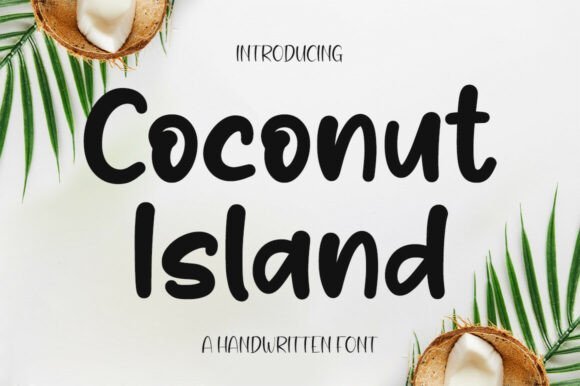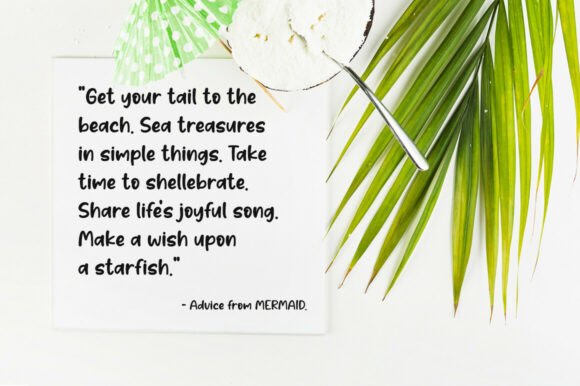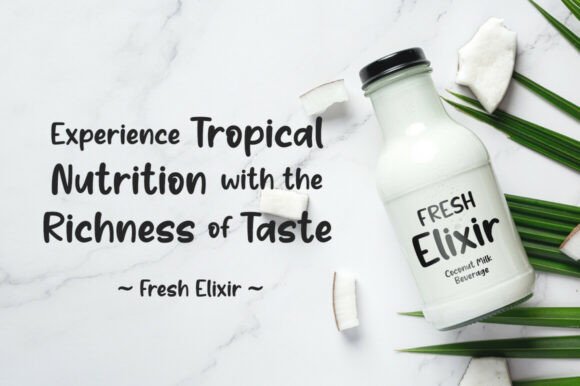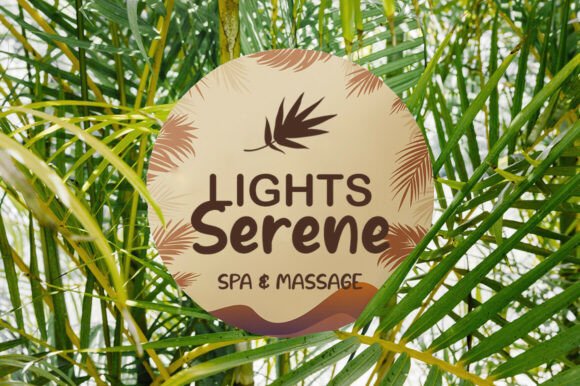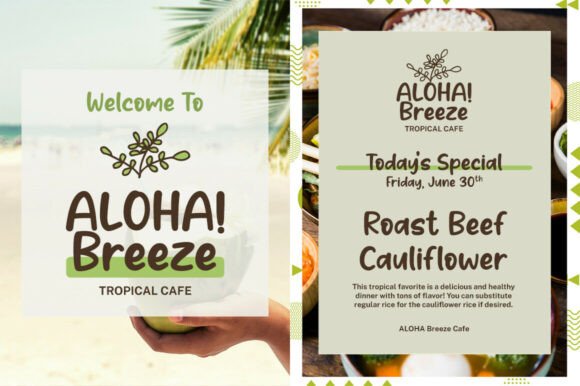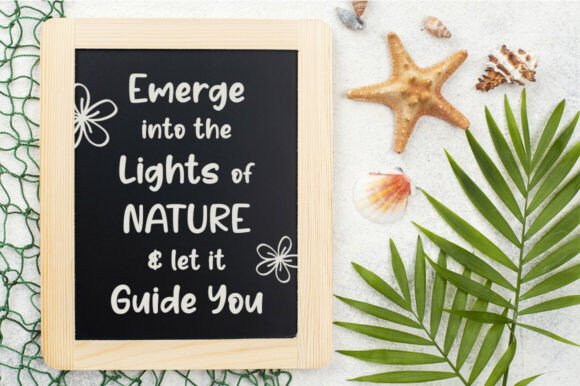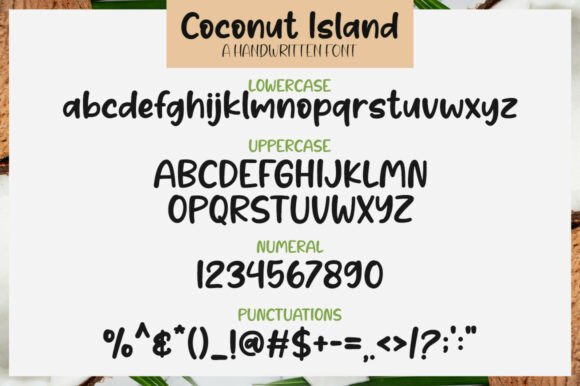
Unleash the Island Vibes with the Perfect Font
Who hasn’t felt the rush of creativity when designing for a tropical getaway or a beachside project? You’re tasked with capturing the carefree spirit of a sunny day by the ocean, but the right font can make all the difference. That’s where the Coconut Island Font comes in – a delightful, handwritten font that embodies the warmth and charm of a tropical paradise.
Designed to evoke the feeling of sun-soaked beach signs and laid-back island vibes, the Coconut Island Font combines playfulness with readability, making it perfect for both display use and body text in informal contexts. Its hand-crafted appearance adds a personal, approachable tone to every word, ideal for brands that want to feel cheerful, relaxed, and human.
Coconut Island Font Key Features
- Font Family: Coconut Island Font is a custom-designed font family with a unique, tropical feel.
- Size: The font family consists of 4 weights (Light, Regular, Medium, and Bold) and 4 styles (Italic, Oblique, Condensed, and Extended).
- Unique Characteristics: Coconut Island Font features a distinctive, hand-drawn aesthetic with intricate details and a relaxed, beachy vibe.
Coconut Island Font Review
At first glance, the Coconut Island Font is quite appealing. It’s a beautiful, modern script font that’s perfect for creating a tropical and relaxed atmosphere in your designs. ✨ The font’s organic feel and unique character shapes make it stand out from other script fonts on the market. ✨
- The font’s soft, rounded edges create a friendly and approachable feel.
- The Coconut Island Font is highly customizable, making it easy to adjust to suit different design projects.
- The font’s large character set includes a wide range of languages and special characters.
However, there are a few limitations to consider. ⚠️ The font’s readability can be an issue at smaller font sizes, and it may not be the best choice for formal or professional designs. ⚠️ Additionally, the font’s unique character shapes can make it difficult to pair with other fonts.
The Coconut Island Font is a great choice for designers looking to create a fun and relaxed atmosphere in their designs. While it may not be suitable for all design projects, its unique character and high customizability make it a great addition to any font collection.
Getting the Most Out of Coconut Island Font
Here are some tips to get the most out of the Coconut Island Font:
- Use it for tropical or beach-themed designs.
- Pair it with bright and bold colors to create a fun and playful atmosphere.
The Coconut Island Font is commonly used for:
- Tropical-themed wedding invitations.
- Beach-themed marketing materials.
- Summer-themed social media graphics.